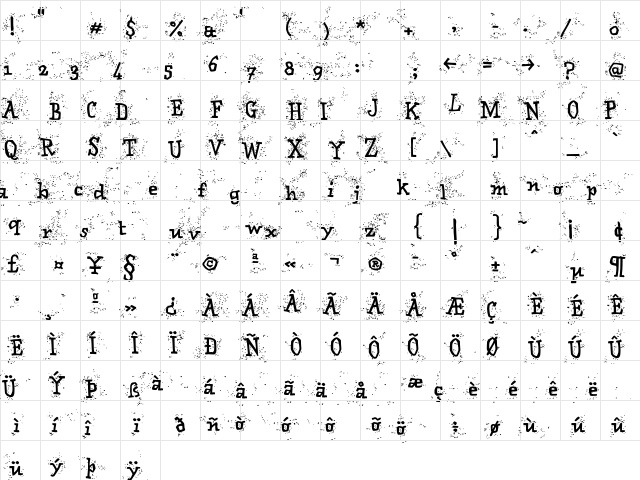
Matto PorcoBold
Design Context for Matto Typeface
Matto is a composed and adaptable typeface that performs quietly and consistently across a wide range of design contexts. Its bold stroke weight gives it real presence on the page.